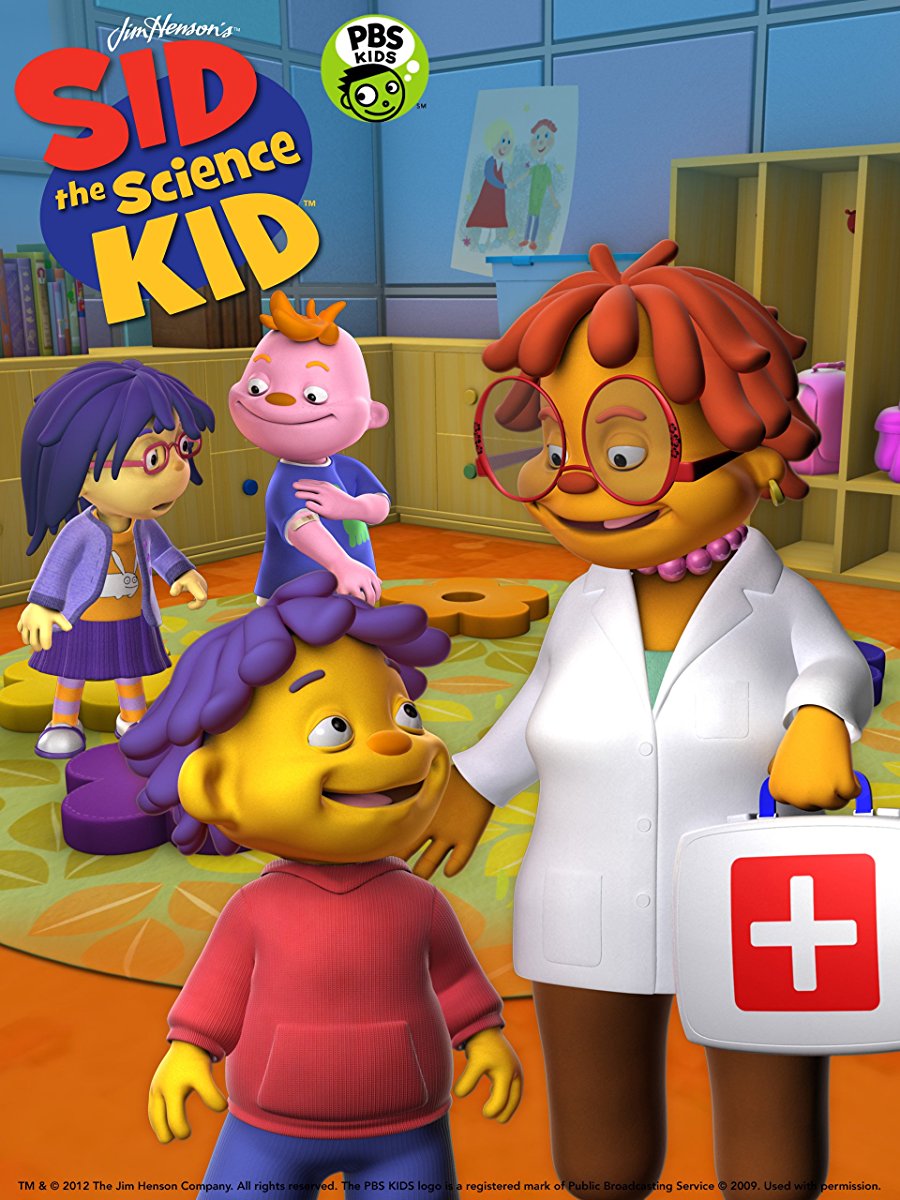
Sid the Science Kid Font
AnimationSid the Science Kid is a preschool television series produced by The Jim Henson Company featuring real-time computer-generated puppets. The show follows the adventures of a curious and playful young boy named Sid, as he learns about various scientific concepts and phenomena through song, dance, and hands-on activities.
The animated series Sid the Science Kid uses a playful display-type font called Grilled Cheese created by Stuart Sandler. You can view more details about it here.